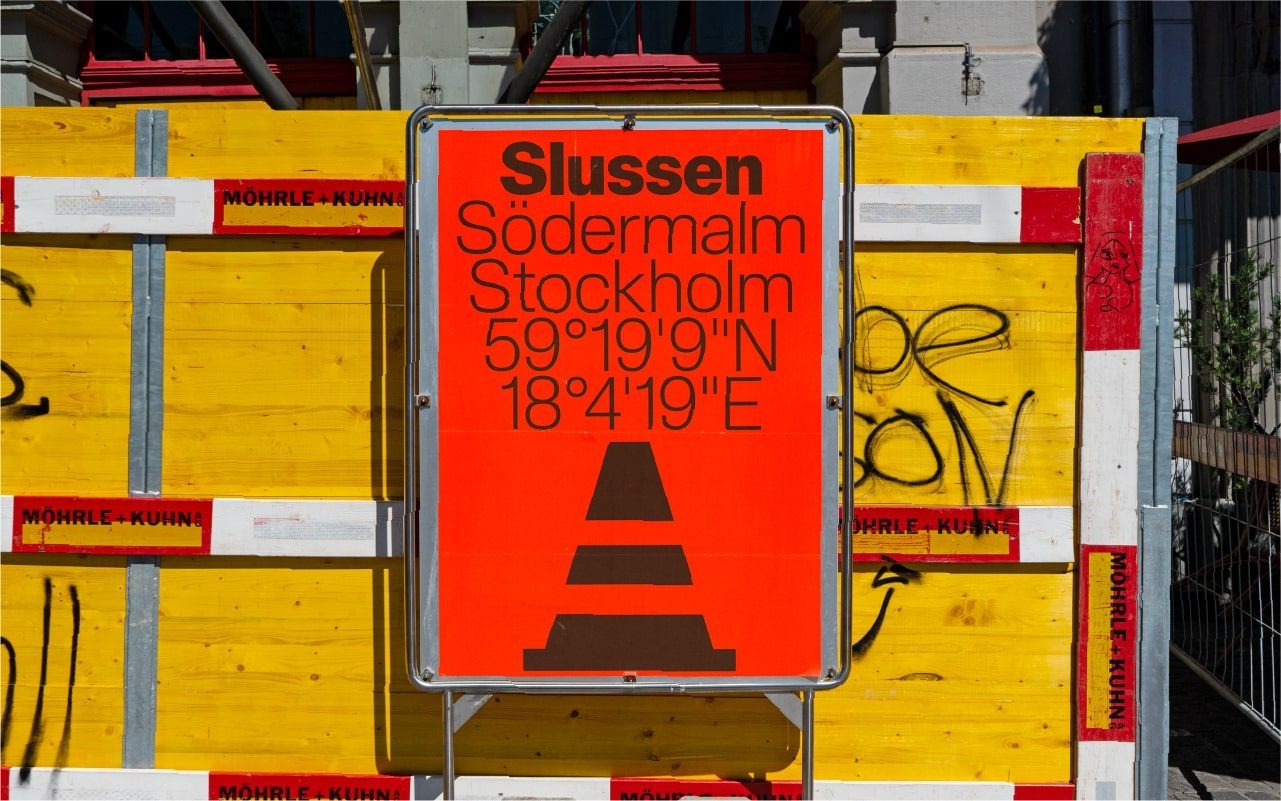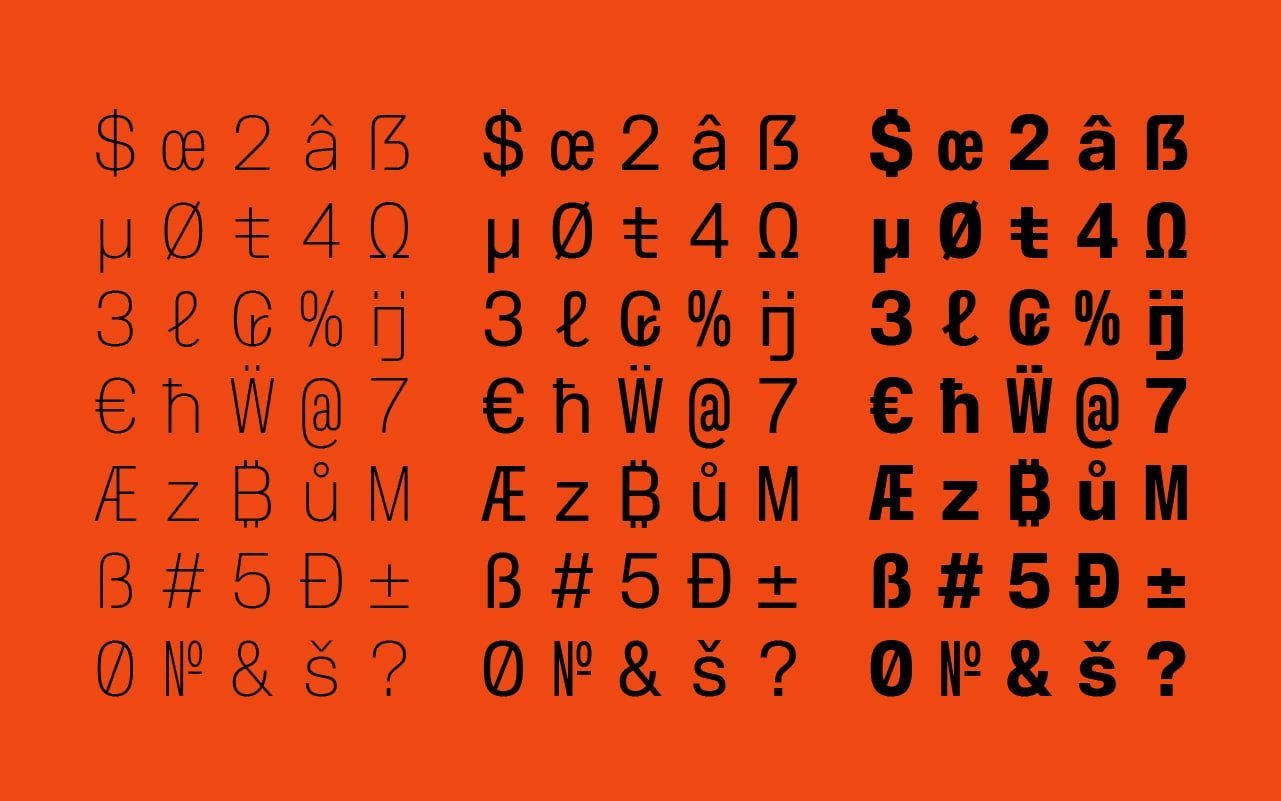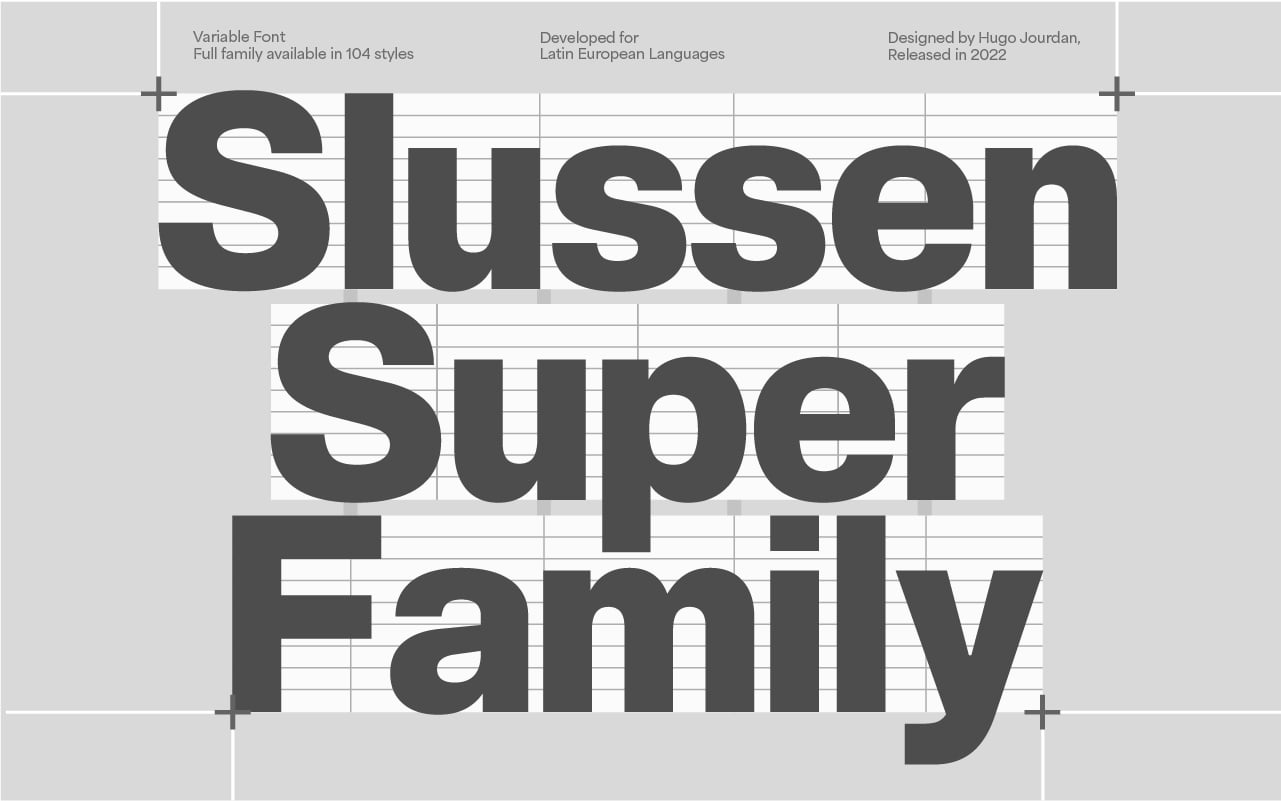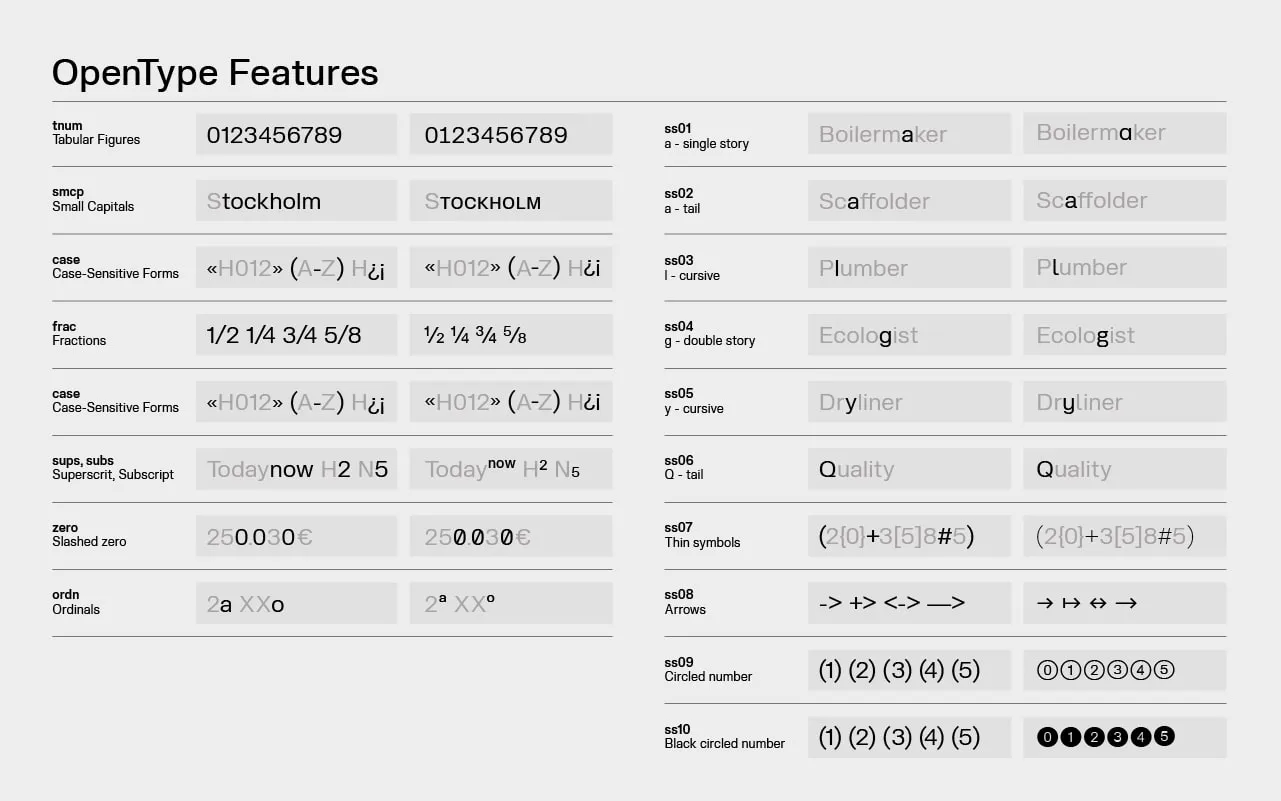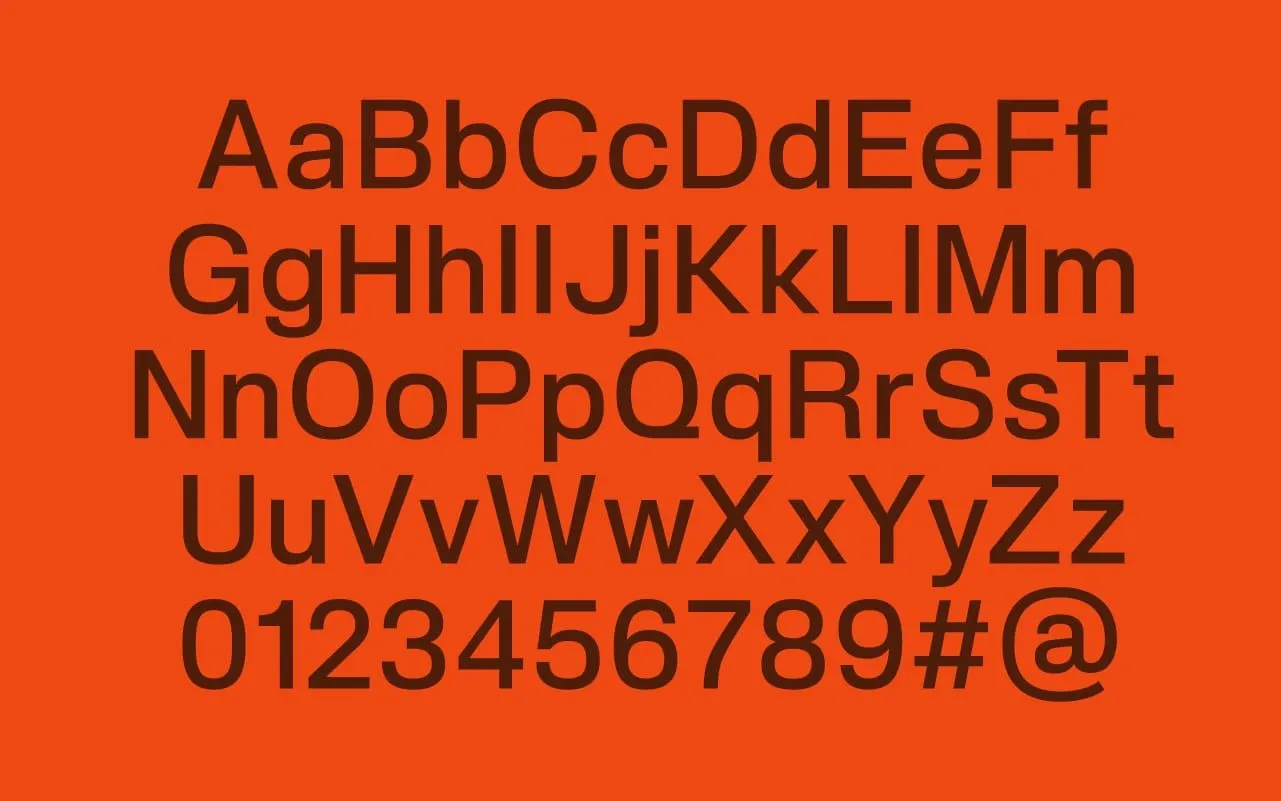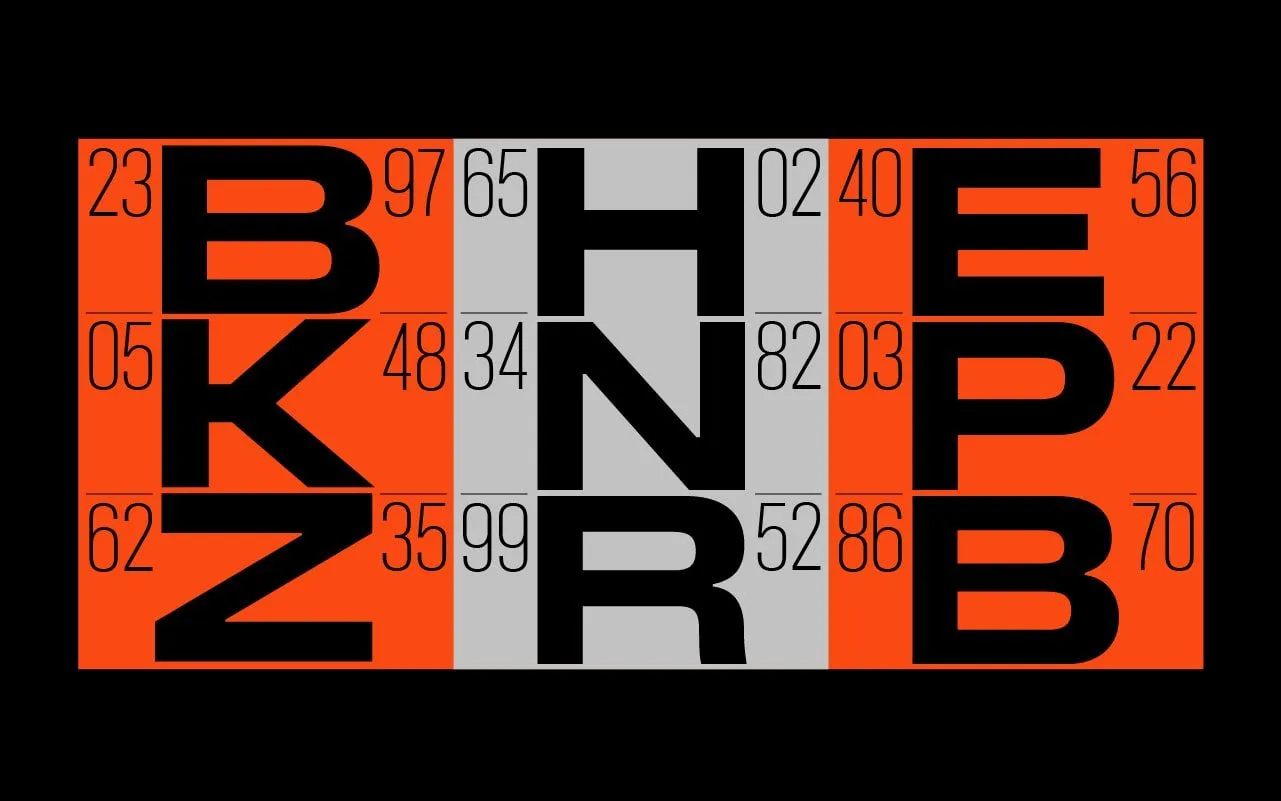
Chatting with Type Designer Hugo Jourdan
You're a former student of the Ecole Estienne. How did your passion for type design come about?
During my studies (MANAA, BTS, then Licence in Motion Design), I had the chance to work on several typographic projects, or at least with a strong emphasis on typography. And, over the years, I began to develop a growing interest in this field.
Initially, it was the use of typography that attracted me. Then, when I joined the DSAA, my interest quickly shifted to type design itself.
During your training at Estienne, what was the atmosphere like among your fellow students? Have you kept any special ties with former students or teachers?
Our class, as well as the one before us, was very close-knit - it really was a great couple of years, and I've kept in touch with most of them.
On the teaching side, it's hard not to mention Frank Jalleau and Margaret Gray, the two founding figures of the course. They have been a constant support, always available to listen, and deeply invested in our progress.
Slussen city with its road nodes.
How did you come to meet Matthieu Salvaggio and Blaze Type? How did the agreement to publish Slussen come about?
After graduating from the DSAA, I took advantage of the summer vacations to relax, but also to make progress on some of my typefaces. I then sent unsolicited applications to quite a few foundries whose work or typographic art direction interested me, in the hope of finding freelance assignments or publishing one of my typefaces under development.
Matthieu responded positively to my e-mail, and in particular told me of his interest in Slussen. At the time, the idea of making it a super-family was already more or less in place, but many of the masters and styles still needed to be revised, improved - or even completely redesigned.
Slussen is one of Blaze Type's flagship typefaces, with a collection of 104 fonts developed over three sets. How did this typeface come about, and how did it develop over time?
Slussen was originally a school project in Margaret's course. The assignment was to design a typeface inspired by the city where we had done our first-year internship. I was lucky enough to spend three months in Stockholm at Stockholm Design Lab. My office was located in Slussen, a huge hub of road, rail and waterway communications, between Gamla stan, Stockholm's old town.
At the time, the building I was working in was at the heart of a gigantic construction site. So, for months on end, I was surrounded by cranes, concrete and workers. So, when I returned to France, it was inconceivable to me not to use all this as raw material for this project.
I'd been wanting to draw a sans serif for a long time, and thought this was the right time to do it. Originally, Slussen had only one style: a Regular. But I had so much fun drawing it that I went on to create a Thin and a Black, to practice my weight skills. Then I thought, "Wouldn't it be cool to have a Condensed too?", so I drew a Condensed, then an Extended, then an Extra Condensed... and to balance things out, an Extra Extended.
The Stencil style was planned from the outset, as a nod to the construction site. The Mono version came at the very end, to further enrich the range of possibilities offered by Slussen. But at no point in the process was Slussen designed to be sold. It was just an excuse to explore and learn new skills.
All in all, I think it took me about a year and a half to achieve the final result. Slussen was completely redesigned two or three times along the way, as my eye sharpened.The Stencil style was planned from the outset, as a nod to the construction site. The Mono version came at the very end, to further enrich the range of possibilities offered by Slussen. But at no point in the process was Slussen designed to be sold. It was just an excuse to explore and learn new skills.
All in all, I think it took me about a year and a half to achieve the final result. Slussen was completely redesigned two or three times along the way, as my eye sharpened.
Would you dream of expanding this family even further, by collaborating with type designers from all over the world to cover other writing systems, and which ones?
Mmh, why not! At least extend with Cyrillic & Greek, but I don't have the skills for that. But if the opportunity ever presents itself, I'm not against it.
Your collaboration seems positive in view of the development of Slussen. Do you have any other upcoming projects with Blaze Type?
For a little over two years now, I've been working at Dinamo, so I don't have the time to get involved in other projects in my spare time.
Which typefaces in the Blaze Type catalog do you secretly admire, and why?
I really like Valerio's work, and Fred's in general. As a typographic engineer today, I can't help but have respect for typefaces with such impressive design space, while managing to maintain such consistency in design.